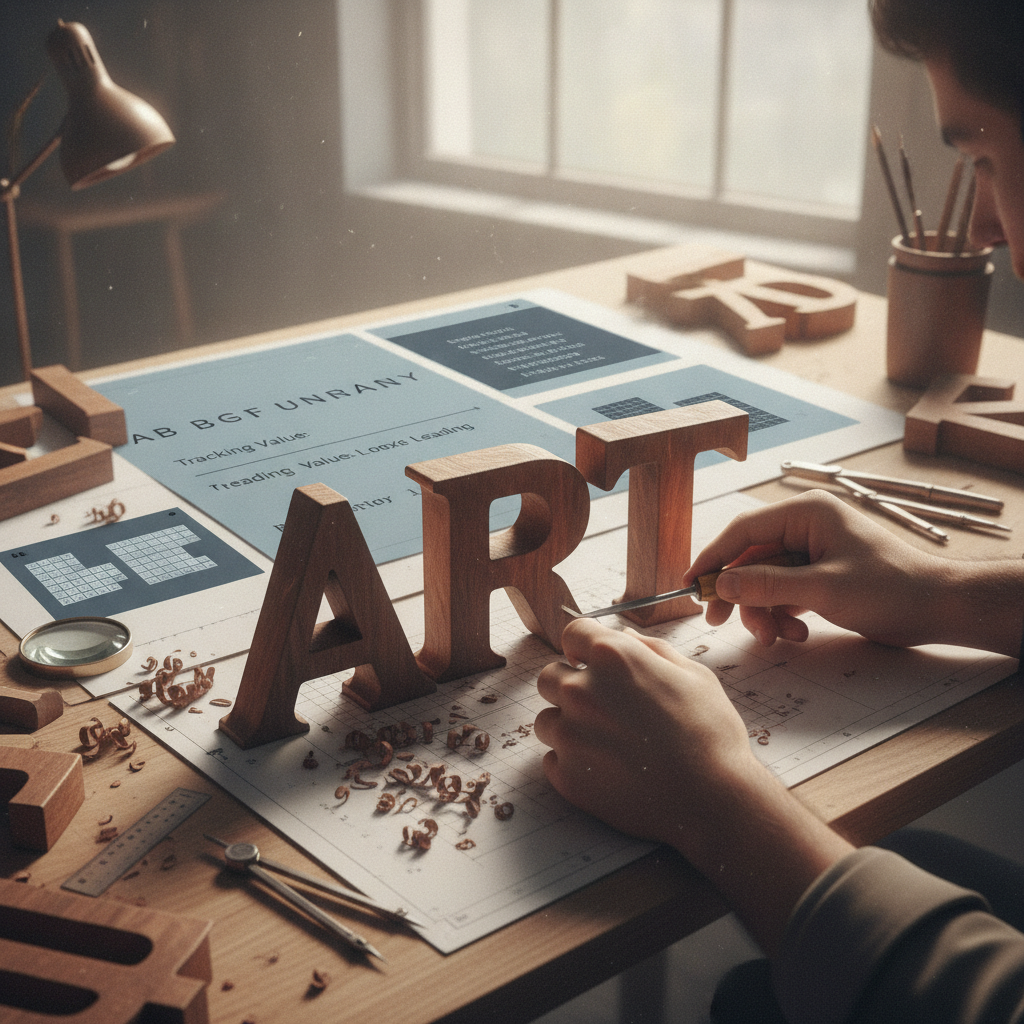
The Art of Spacing: How Kerning, Tracking, and Leading Shape Design
Understanding the Basics of Typography
When it comes to typography, the visual appeal of text is not solely determined by the font choice. The spacing between letters and lines—known as kerning, tracking, and leading—plays a crucial role in the overall design. These elements can significantly enhance readability and aesthetic quality, making them essential tools for designers. Let's explore each of these concepts in depth.
Kerning: The Space Between Letters
Kerning refers to the adjustment of space between individual characters in a word. Unlike tracking, which affects the spacing of an entire word or block of text, kerning fine-tunes the space between specific letter pairs. Proper kerning can create a more visually pleasing and cohesive appearance, while poor kerning may lead to awkward gaps that detract from the overall design.
“Good kerning can make the difference between a professional look and an amateur one.”
Tracking: The Space Across Words
Tracking involves adjusting the space across a range of letters or an entire block of text. This technique is particularly useful when trying to control the density of text in design layouts. By increasing the tracking, designers can create an airy feel, while decreasing it can make the text feel more compact. However, it's important to find a balance, as excessive adjustments can impair readability.
Leading: The Space Between Lines
Leading (pronounced "ledding") refers to the vertical space between lines of text. This element is crucial for ensuring that text is legible and comfortable to read. Tight leading can cause the text to feel cramped, whereas too much leading can create disjointedness. The ideal leading depends on the font, size, and overall context of the design, requiring thoughtful consideration from designers.
The Impact of Spacing on Design
Effective use of kerning, tracking, and leading can elevate a design from ordinary to extraordinary. These spacing details not only enhance aesthetic quality but also influence how the audience interacts with the text. A well-spaced design invites readers in, making the content more accessible and engaging. In contrast, poorly executed spacing can lead to confusion and diminish the impact of the message.
Conclusion
In the world of design, attention to detail is paramount. Kerning, tracking, and leading are not just technical aspects of typography; they are essential elements that contribute to the overall effectiveness of a design. By mastering these spacing techniques, designers can create visually appealing and readable content that resonates with their audience.